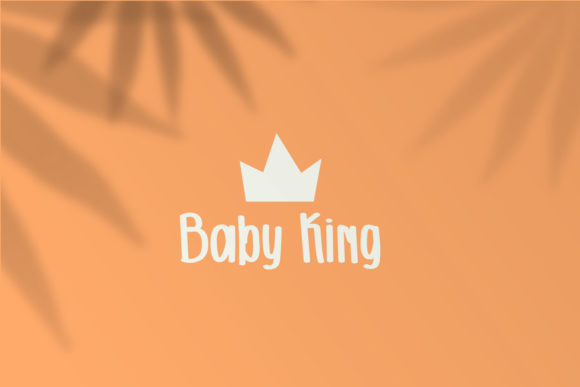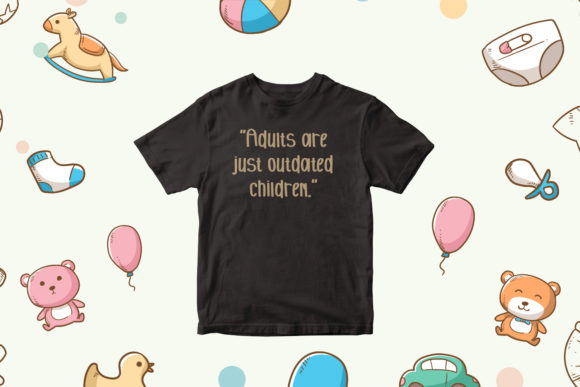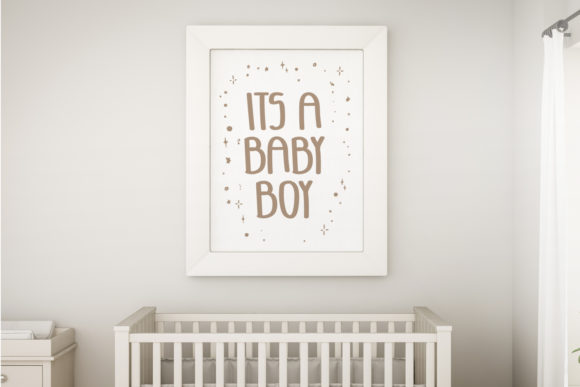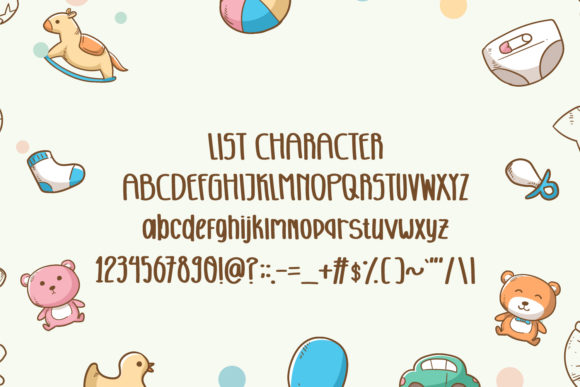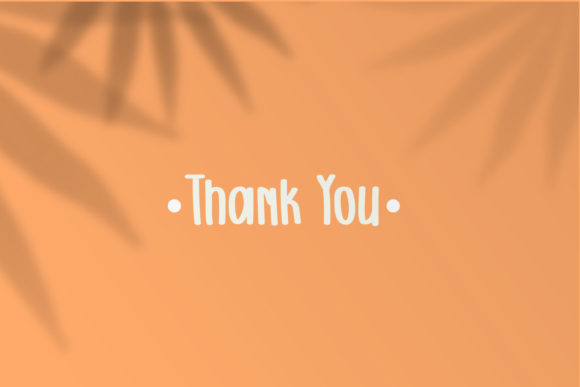
Hello Bro Font: The Ultimate Display Font for Creative Projects
In the world of design, fonts play a crucial role in conveying the tone and personality of a project. If you’re a designer, crafter, or digital artist looking for a bold and quirky display font, look no further than Hello Bro Font. This trendy font is perfect for a variety of creative projects, from digital designs and presentations to greeting cards and crafting.
What is Hello Bro Font?
Hello Bro Font is a bold and eye-catching display font that features a unique blend of modern and playful elements. Its quirky design makes it stand out from more traditional fonts, adding a touch of personality to any project. Whether you’re creating a digital design, crafting a handmade card, or designing a presentation, Hello Bro Font is the perfect choice.
Key Features of Hello Bro Font
- Bold and Quirky Design: Hello Bro Font features a bold and quirky design that’s perfect for making a statement.
- Trendy and Modern: This font is designed with the latest design trends in mind, making it perfect for modern projects.
- Versatile: Hello Bro Font can be used for a variety of projects, from digital designs and presentations to greeting cards and crafting.
- Easy to Read: Despite its bold and quirky design, Hello Bro Font is easy to read, making it perfect for use in a variety of contexts.
Uses for Hello Bro Font
Hello Bro Font is a versatile font that can be used for a wide range of creative projects. Here are some ideas to get you started:
- Digital Designs: Use Hello Bro Font to add a touch of personality to your digital designs, from social media graphics to website headers.
- Crafting: Hello Bro Font is perfect for crafters who want to add a personal touch to their handmade cards and projects.
- Presentations: Use Hello Bro Font to add visual interest to your presentations and make them stand out.
- Greeting Cards: Create unique and personalized greeting cards with Hello Bro Font.
Tips for Using Hello Bro Font
Here are some tips for getting the most out of Hello Bro Font:
- Use it Sparingly: Hello Bro Font is bold and eye-catching, so use it sparingly to avoid overwhelming your design.
- Pair it with Other Fonts: Hello Bro Font pairs well with a variety of other fonts, so don’t be afraid to experiment with different combinations.
- Experiment with Colors: Hello Bro Font looks great in a variety of colors, so experiment with different color schemes to find the one that works best for your project.
- What is Hello Bro Font?: Hello Bro Font is a bold and quirky display font featuring a unique blend of modern and playful elements.